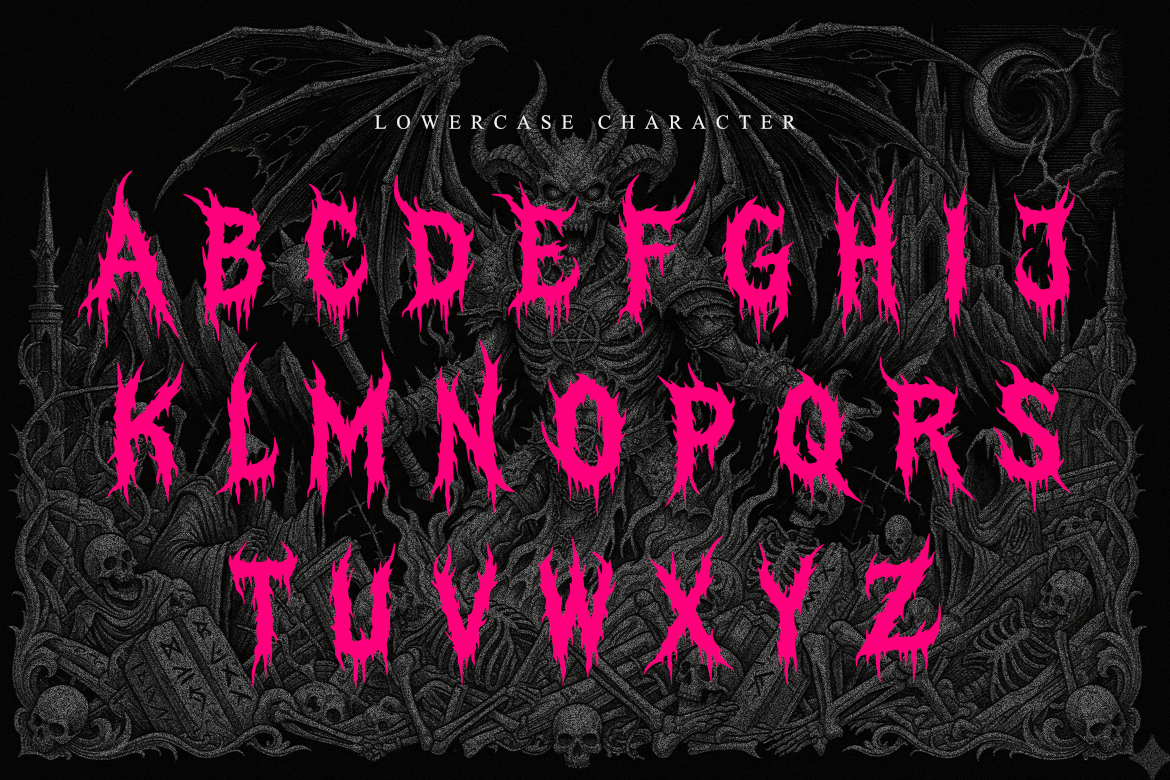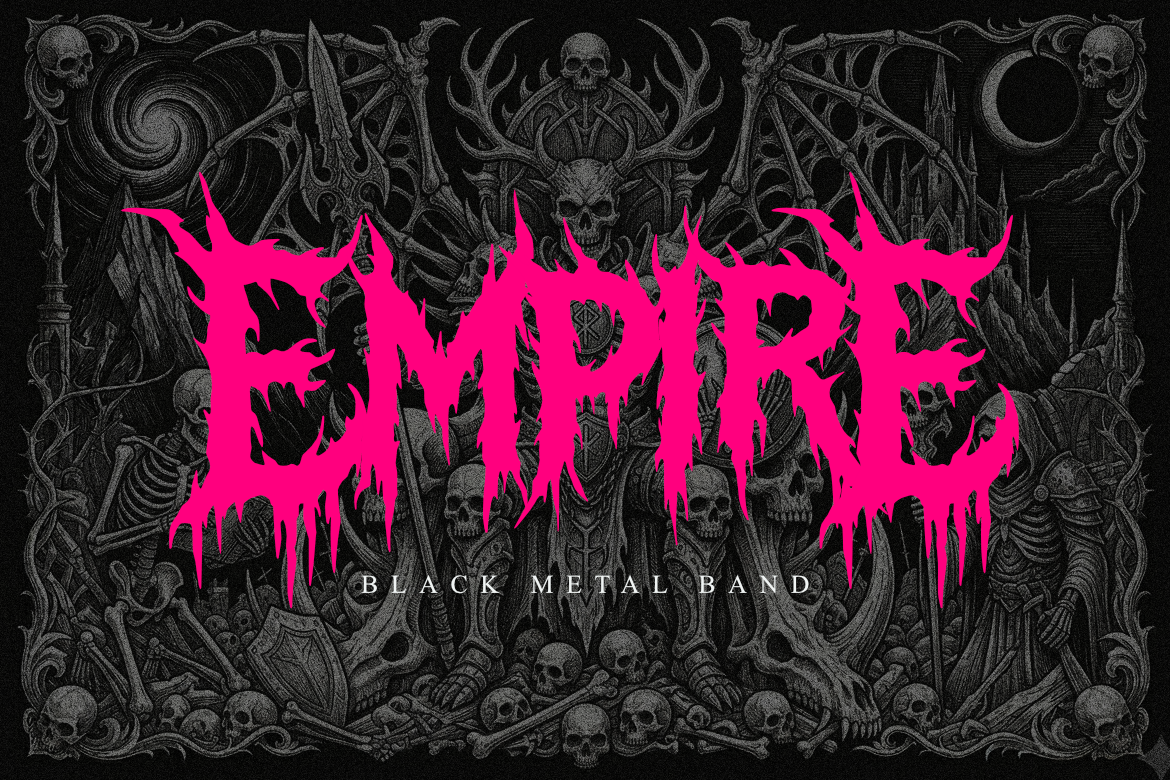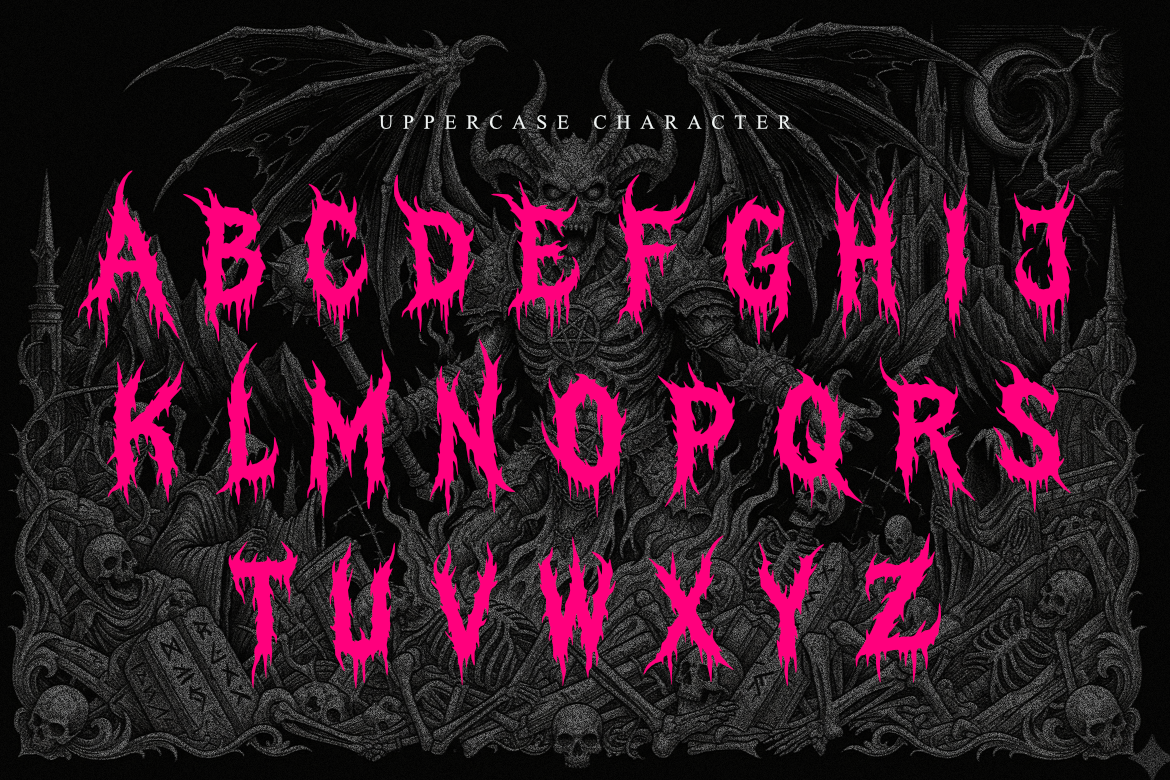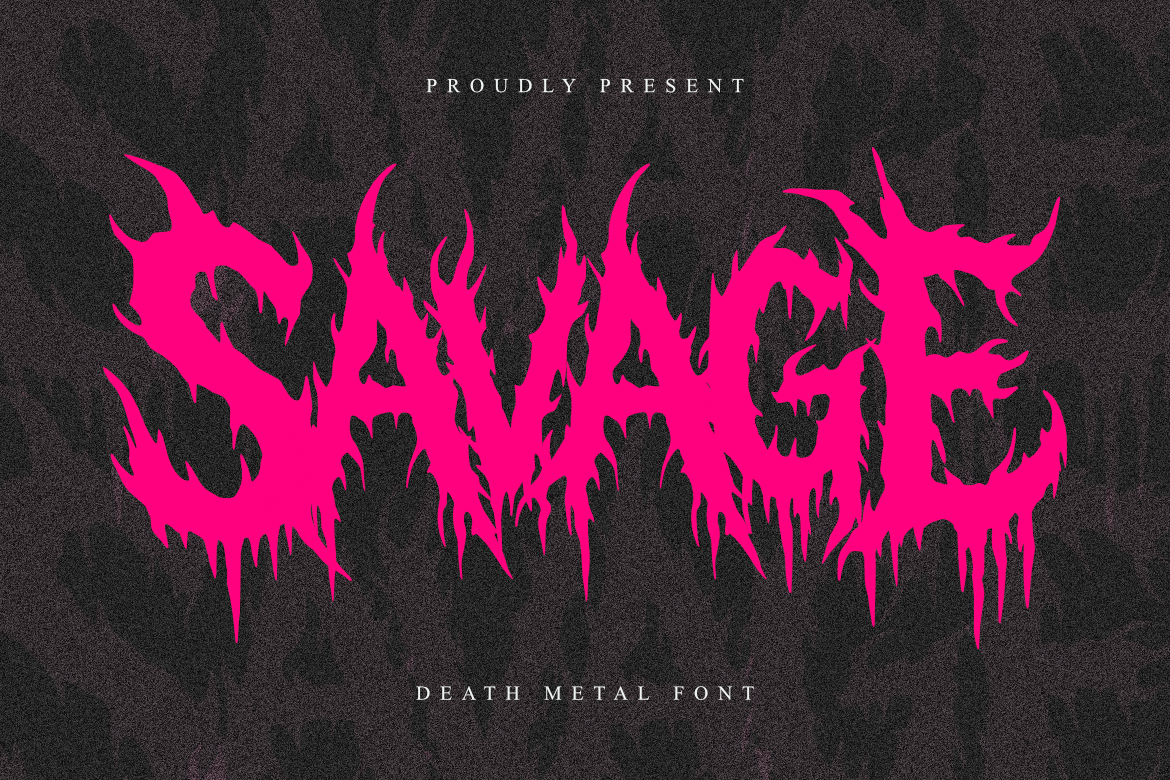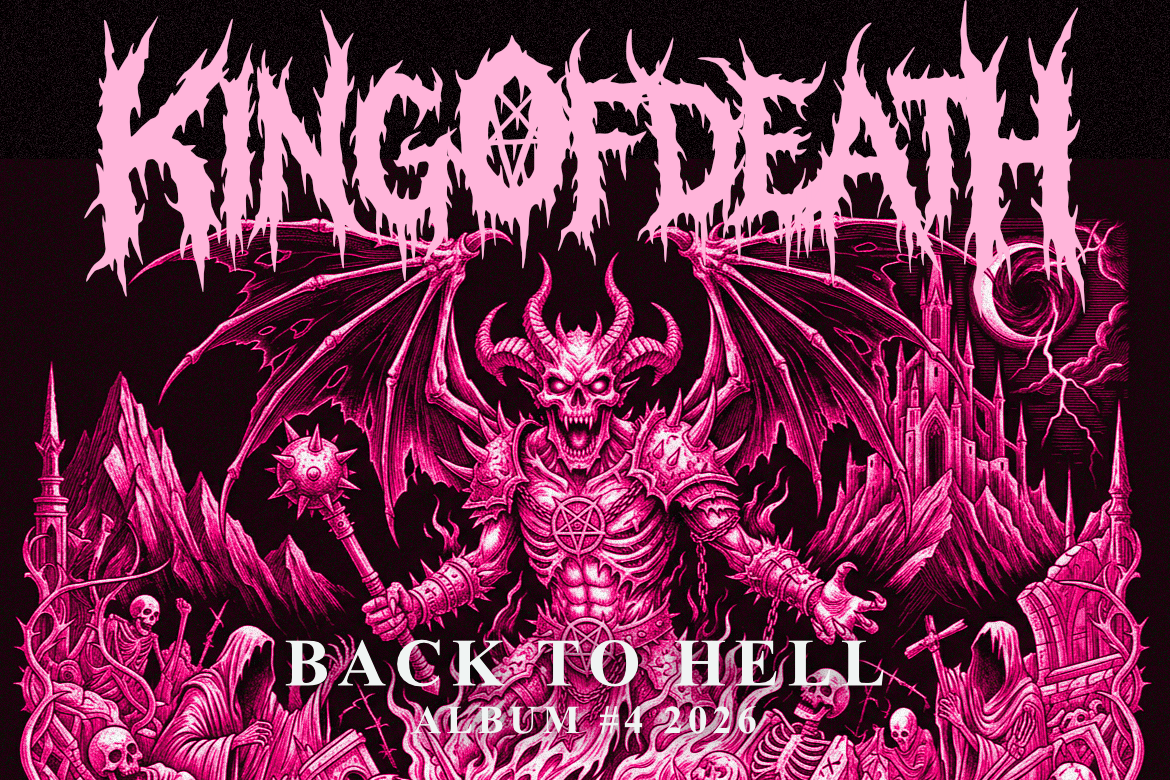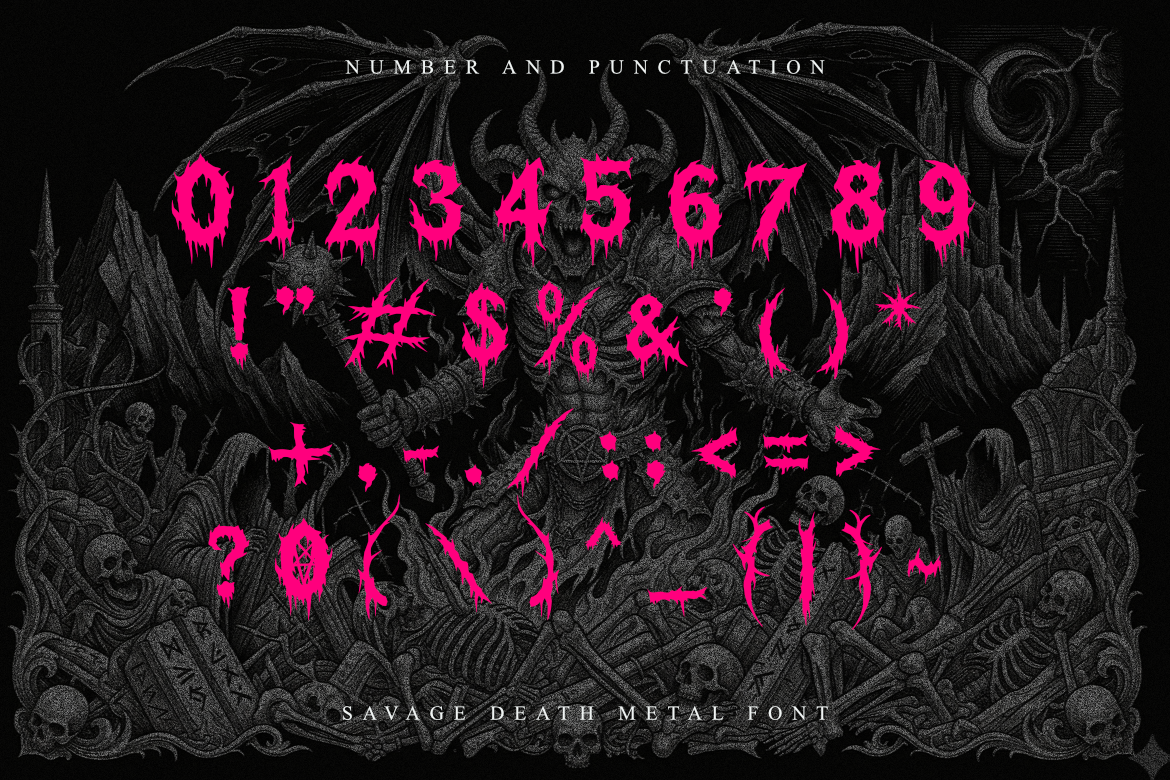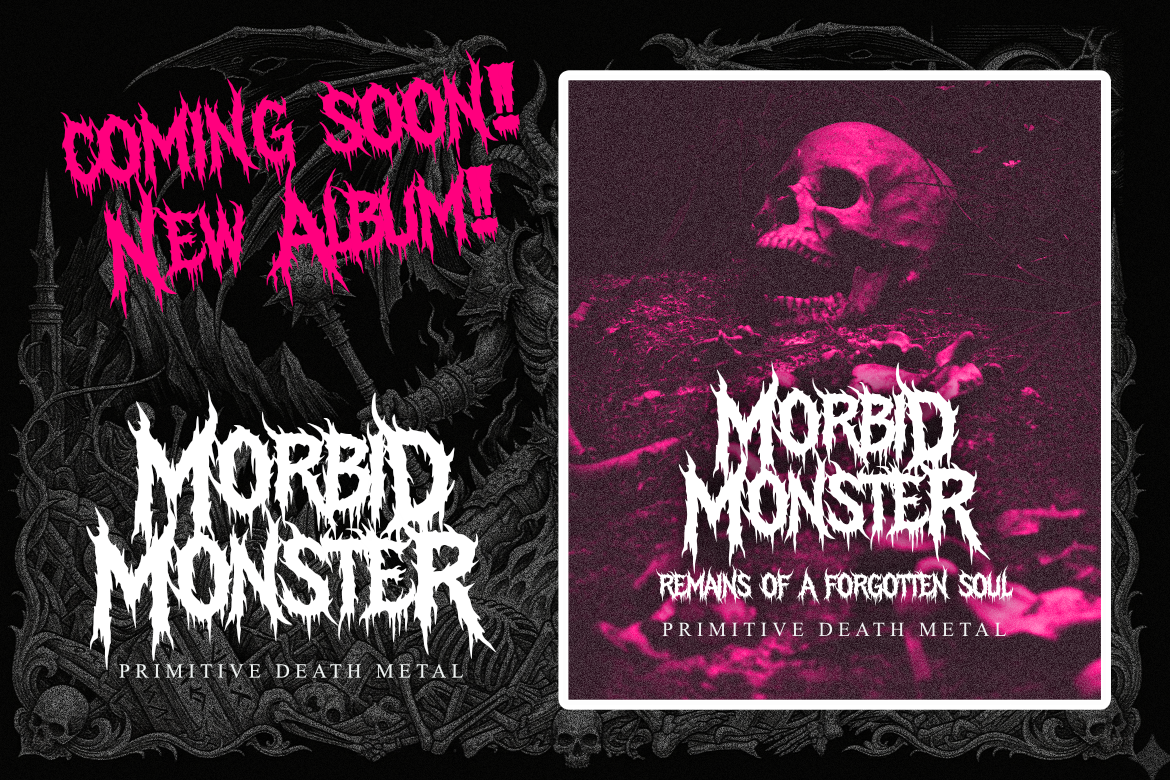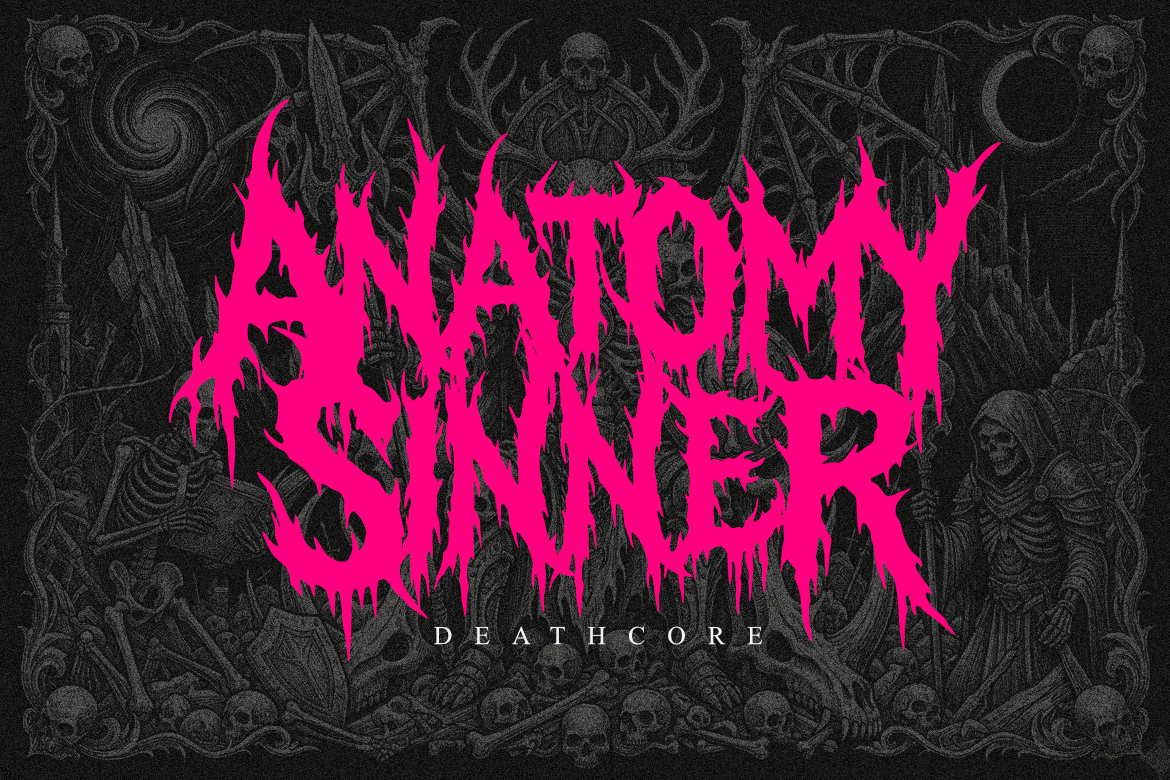
Savage - Brutal Death Metal Font
Savage - Brutal Death Metal Font for Underground Band Logo & Dark Design
Savage is a brutal professional font designed for sophisticated branding and high-end extreme design projects.
Its sharp and aggressive letterforms provide a contemporary yet timeless feel, striking a perfect balance between organic chaos and modern metal aesthetics. This font embodies the essence of modern minimalism while maintaining a sense of raw power and refinement, making it perfect for logos, corporate materials, and professional presentations within the music.
Whether you are crafting a corporate identity for an extreme label, designing sleek business cards for a tattoo studio, or working on editorial content, Savage ensures your work exudes professionalism and style. It is ideal for branding, business logos, websites, and more, helping you communicate a polished and powerful aesthetic that leaves a lasting impression.
Inspired by the vibrant energy of the underground scene and raw visceral elements, Savage offers versatility and adaptability for various design applications, ensuring your project stands out with a dark, professional edge.
- Bold, organic, and aggressive death metal style.
- Unique dripping and raw “savage” letterforms.
- Perfect for high-end branding, and logos.
- Designed for maximum visual impact in display use.